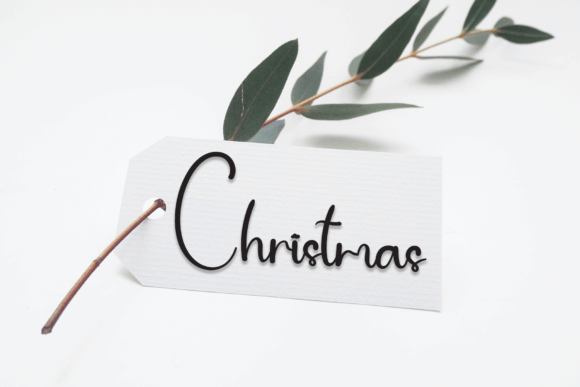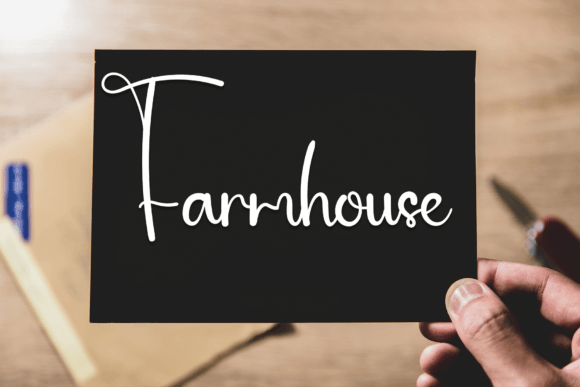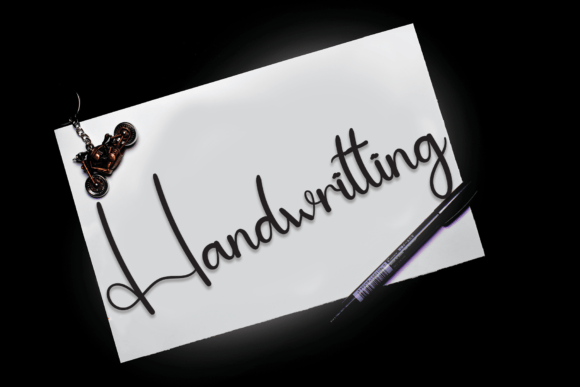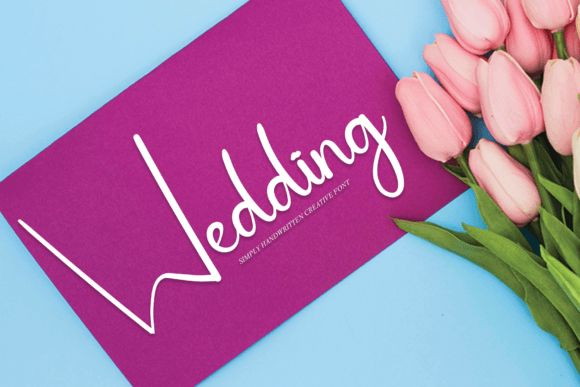
Baby Christmas Font
About Baby Christmas Font
Baby Christmasfont is a simple, friendly handwritten typeface designed to bring warmth and joy to your creative projects. Whether you’re working on crafts, digital designs, presentations, or greeting cards, this font offers a versatile style that suits various occasions.
When you download Baby Christmasfont, you add a charming and approachable handwriting style to your design toolkit. Its gentle curves and balanced strokes provide a personal, handcrafted feel that enhances your work’s emotional appeal.
Ideal Uses for Baby Christmas Font
Baby Christmasfont fits perfectly in many creative projects, including:
• Craft projects like DIY holiday decorations
• Digital design work for social media posts and websites
• Presentations that benefit from a warm, readable font
• Greeting cards and invitations that require a heartfelt touch
This font combines simplicity and friendliness, making it easy to read while giving your designs a cozy and festive look.
In conclusion, Baby Christmasfont is a simple, friendly, and versatile handwritten font. Download Baby Christmasfont now to add a genuine, festive spirit to all your creative ideas.